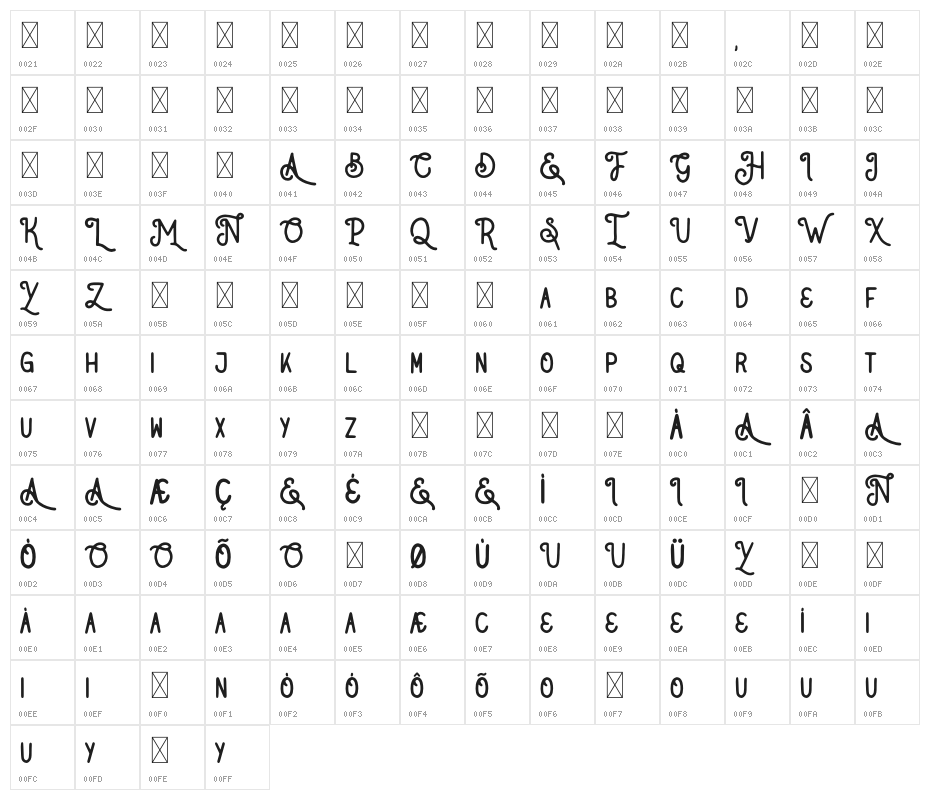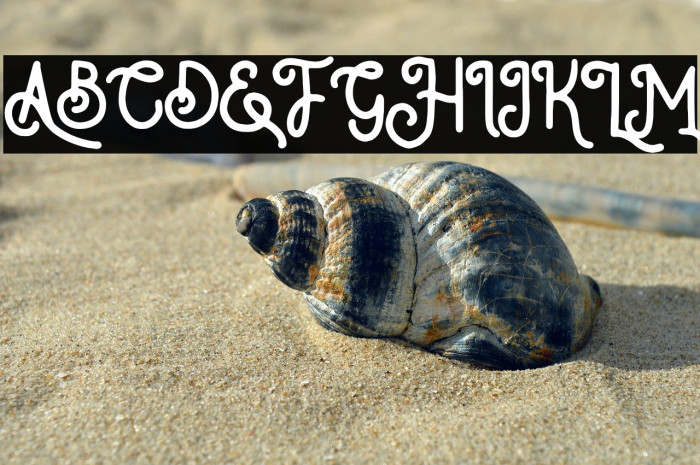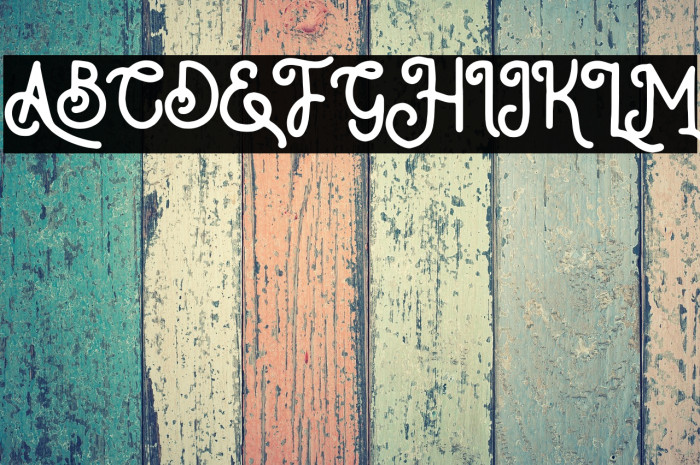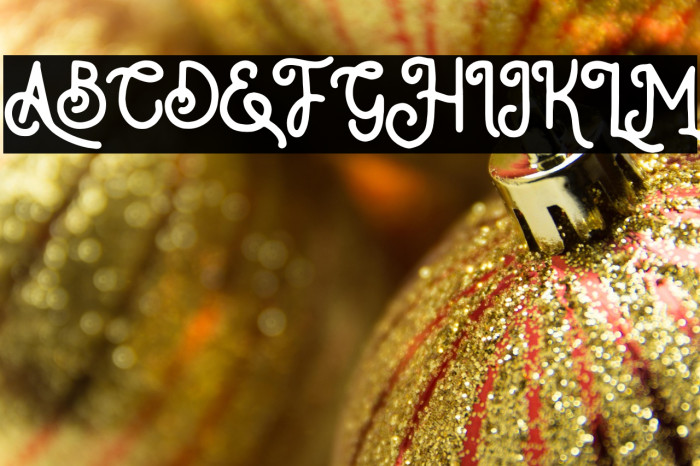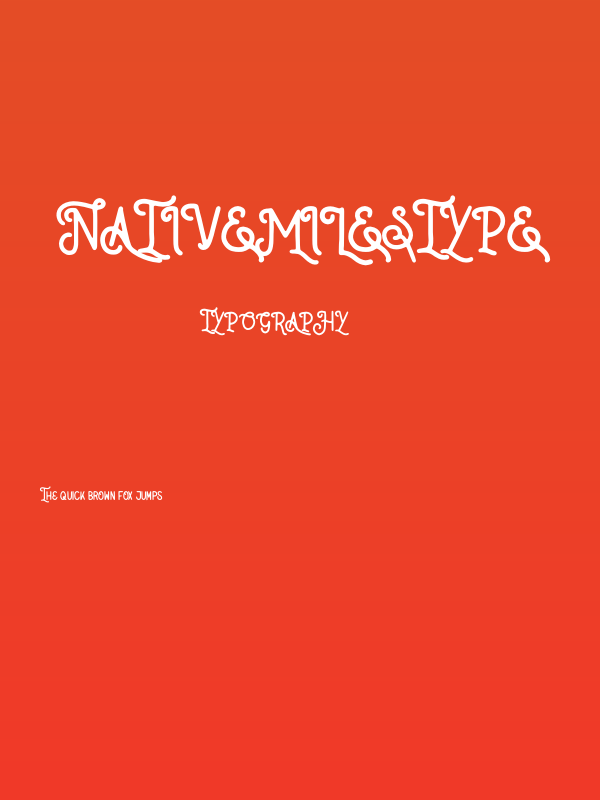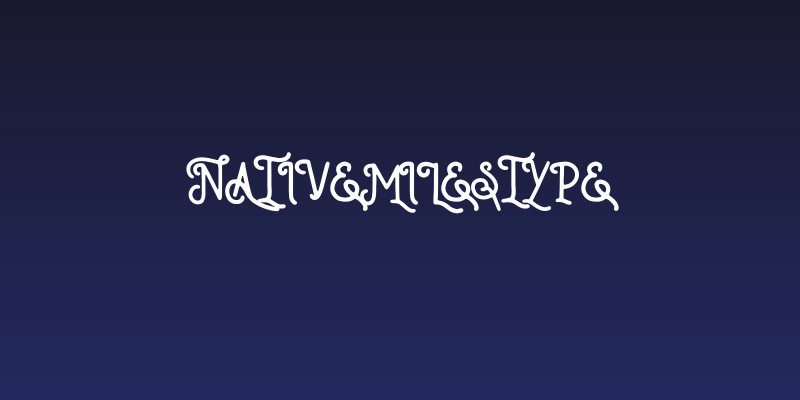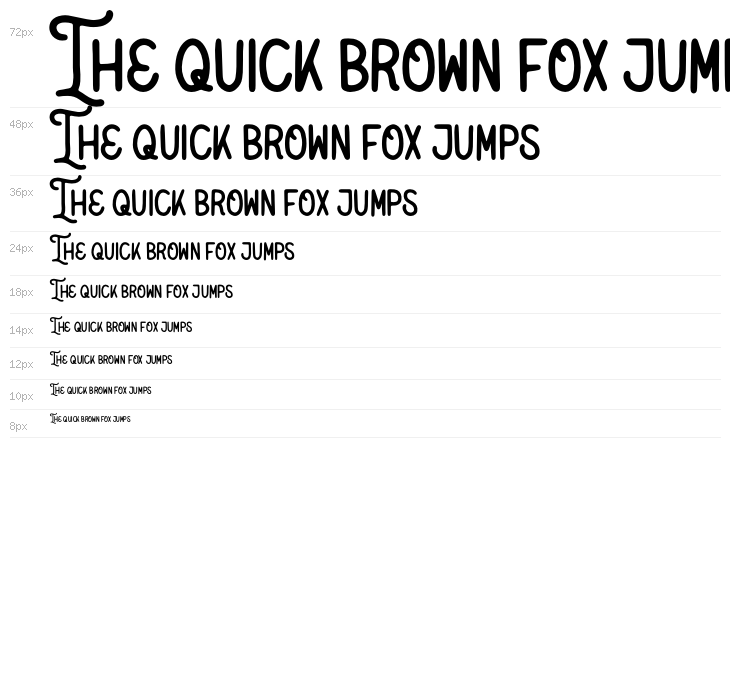
NativeMilesType Font
NativeMilesType Description
This font features a playful and decorative style with a whimsical flair. The uppercase letters have a unique, curly design that adds a sense of fun and creativity. The strokes are moderately thick, providing a bold appearance without being overwhelming. The lowercase letters maintain a similar style, ensuring consistency throughout the text. The characters are well-spaced, allowing for clear readability despite the decorative elements. This font is ideal for projects that require a touch of personality and charm, such as invitations, greeting cards, or playful branding materials.
| Proposed Projects | Ideal for invitations, greeting cards, playful branding, and creative projects. |